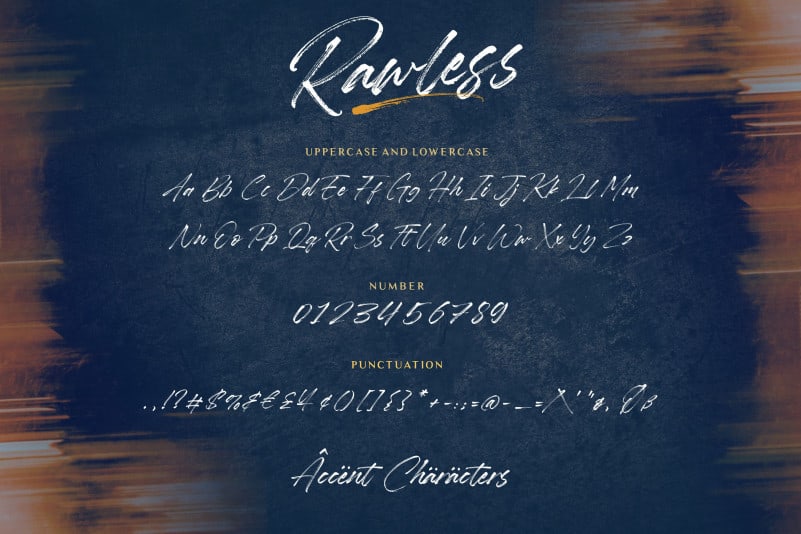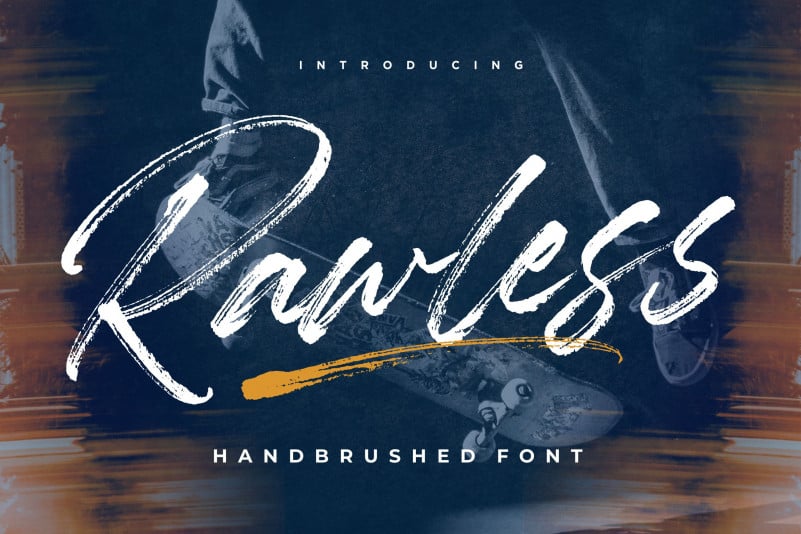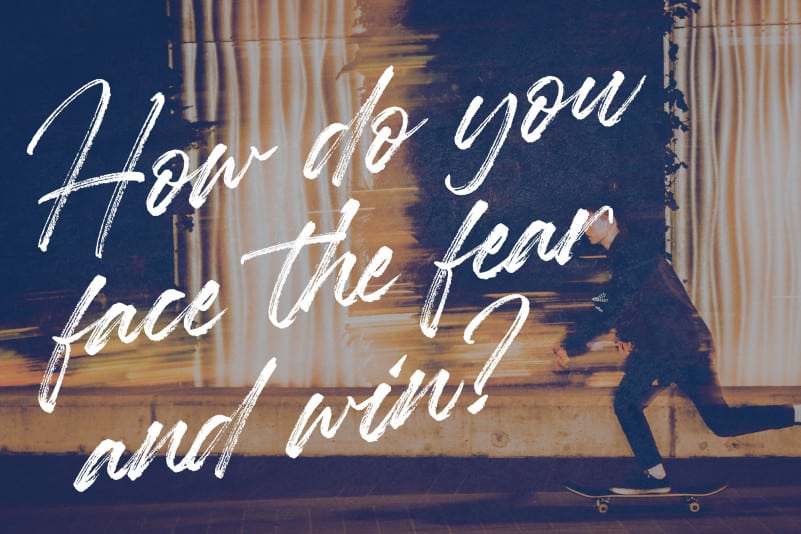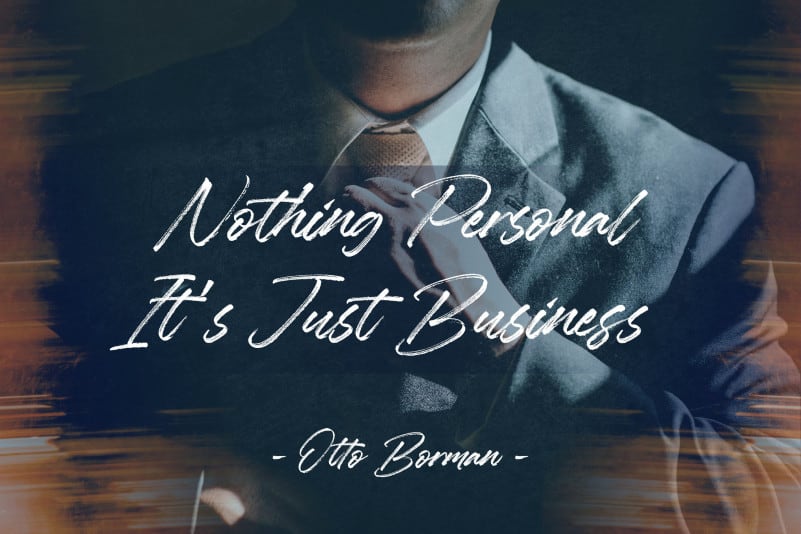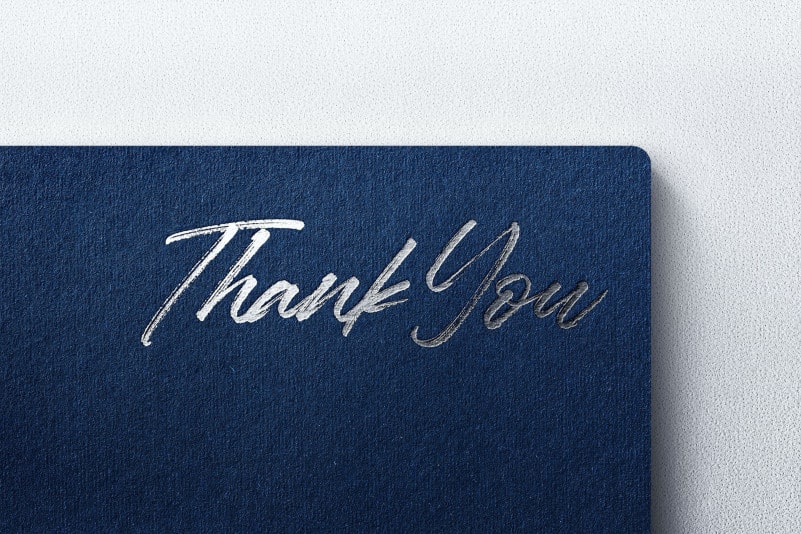
Rawless Natural Handbrushed Font
Proudly Present, Rawless Natural Handbrushed Font.
Rawless is a Natural Handbrushed Font. Rawless is perfect for product packaging,logo, invitation, stationery, branding project, label, photography, watermark, megazine, social media post, wedding, or just used to express words above the background.